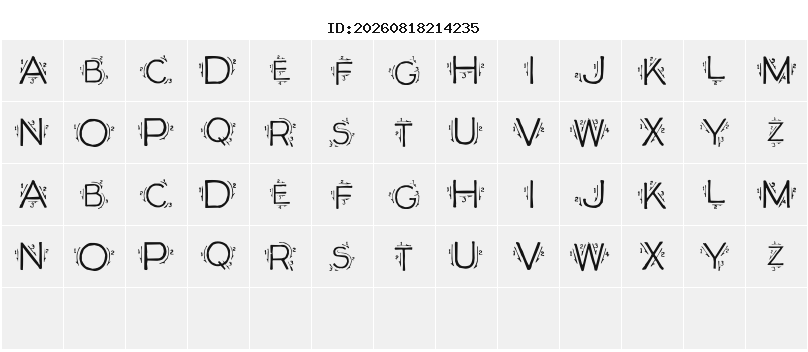
Single Stroke Preview
About Single Stroke.ttf
Single Stroke.ttf is a modern, elegant sans-serif font designed for ultimate readability and visual harmony. Perfect for branding, headlines, web design, and print materials.